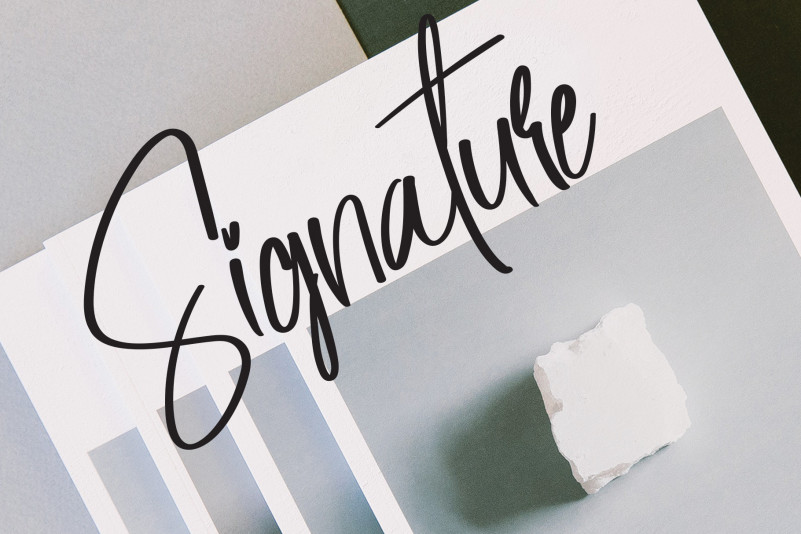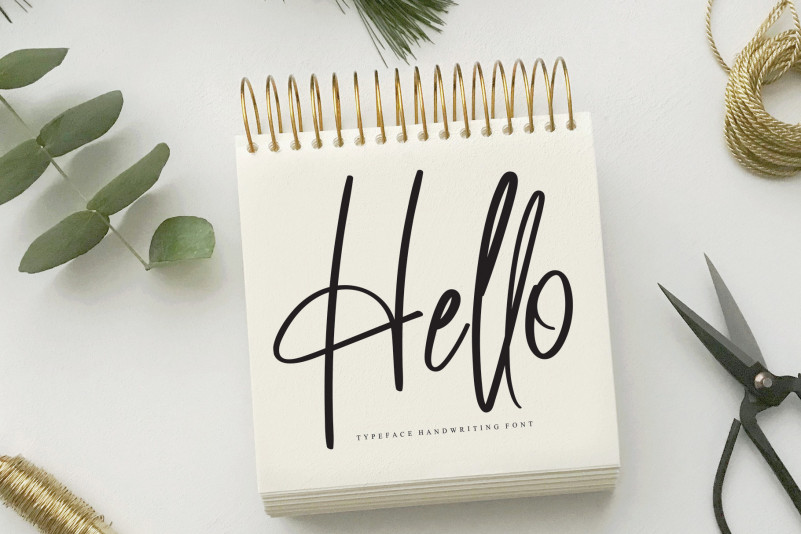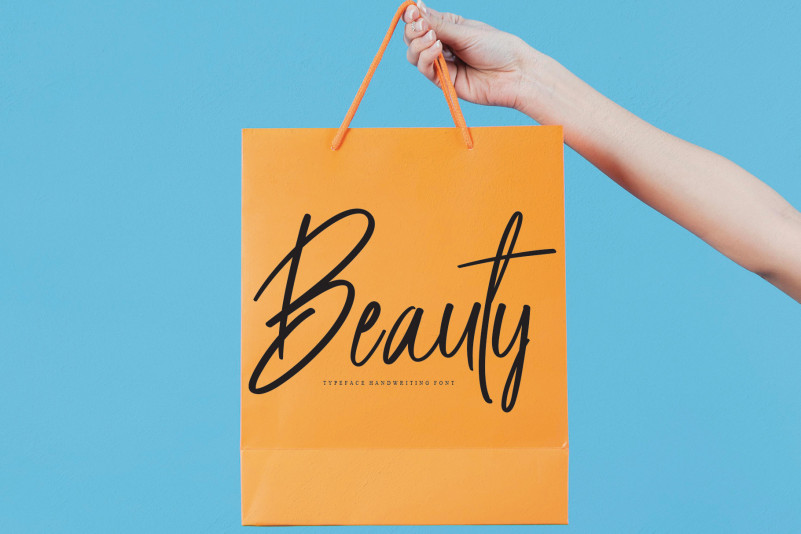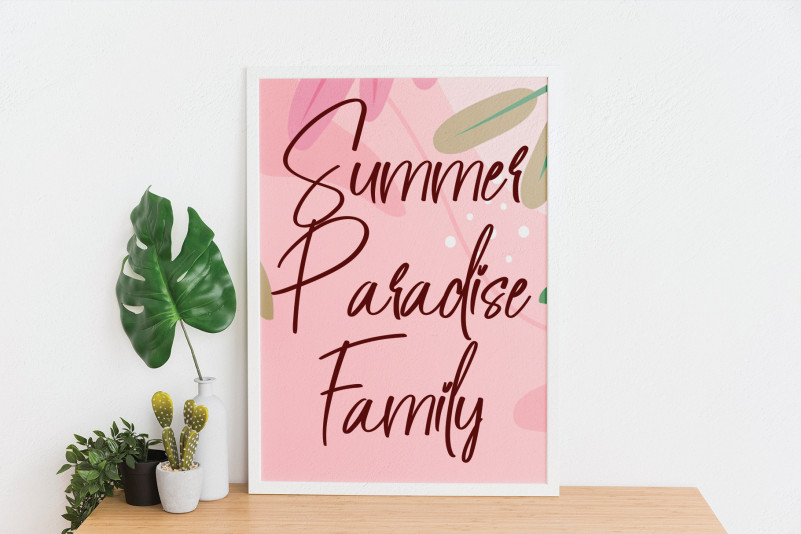
Massachusetts Script Font
Introducing Massachusetts Script Font – The latest style letters are perfect for wall displays, wedding invitations, social media post logos, advertisements, product packaging, product designs, labels, photography, watermarks, invitations, stationery,and any project that requires taste handwriting.